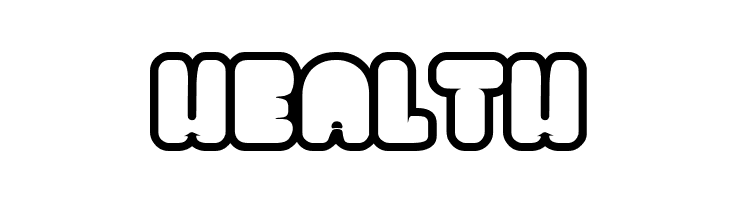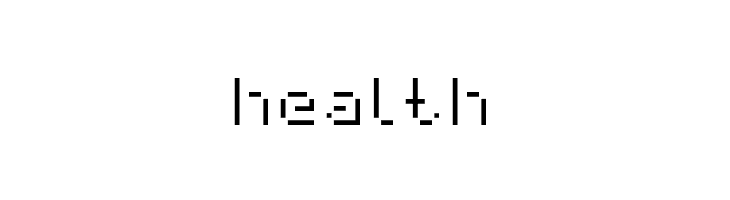
( Fonts by Khrys Bosland )
A pixelated, retro-style font with a blocky, geometric design.
( Fonts by Maelle.K - Thomas Boucherie )
A playful, bold font with rounded, bubble-like characters.
( Fonts by Manuel Viergutz - Typo Graphic Design - www.typographicdesign.de )
A pixelated, bitmap font with a retro digital aesthetic.
( Fonts by Steve Cloutier - www.cloutierfontes.ca )
A decorative and intricate font with characters formed by intertwining shapes.